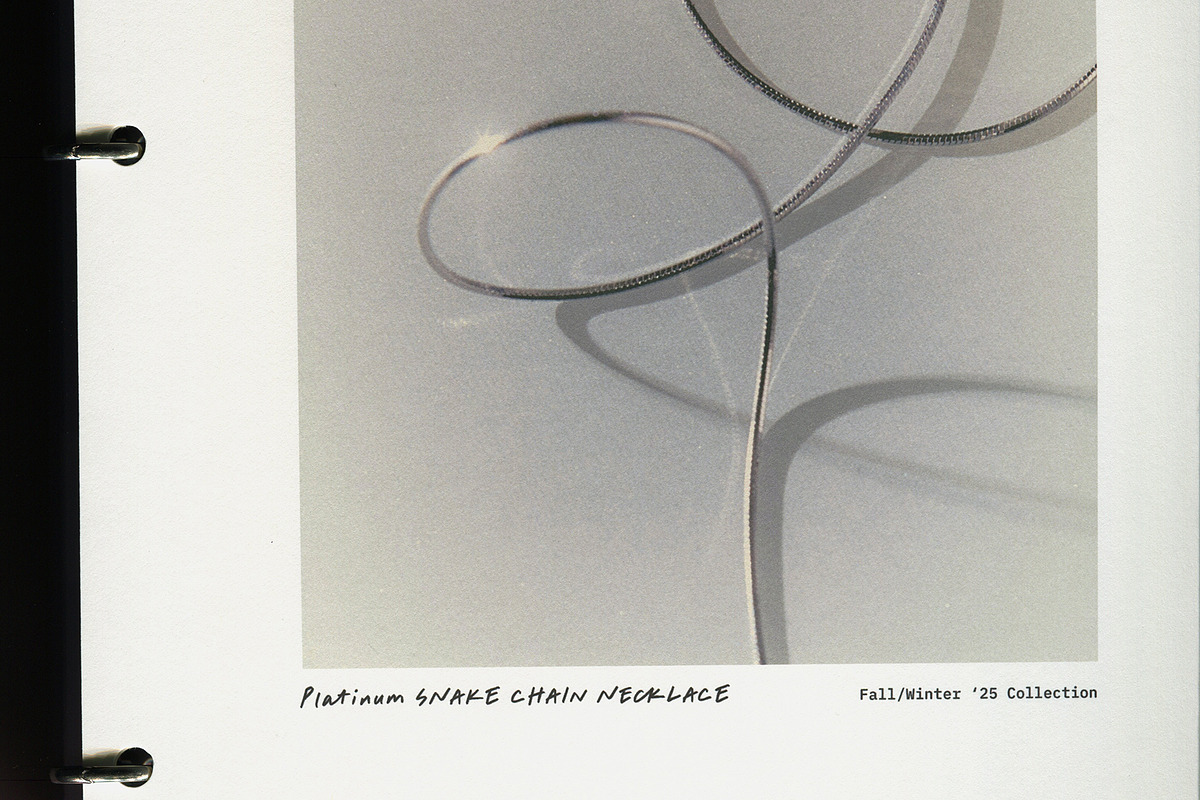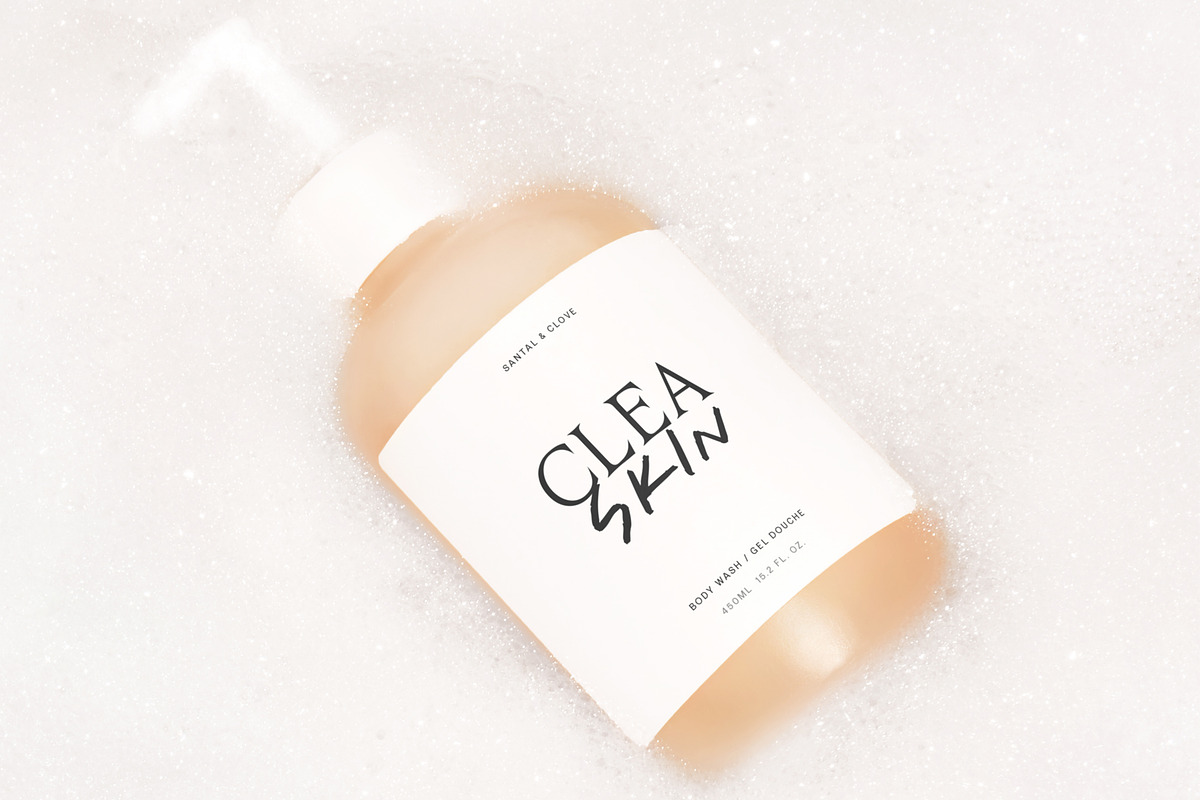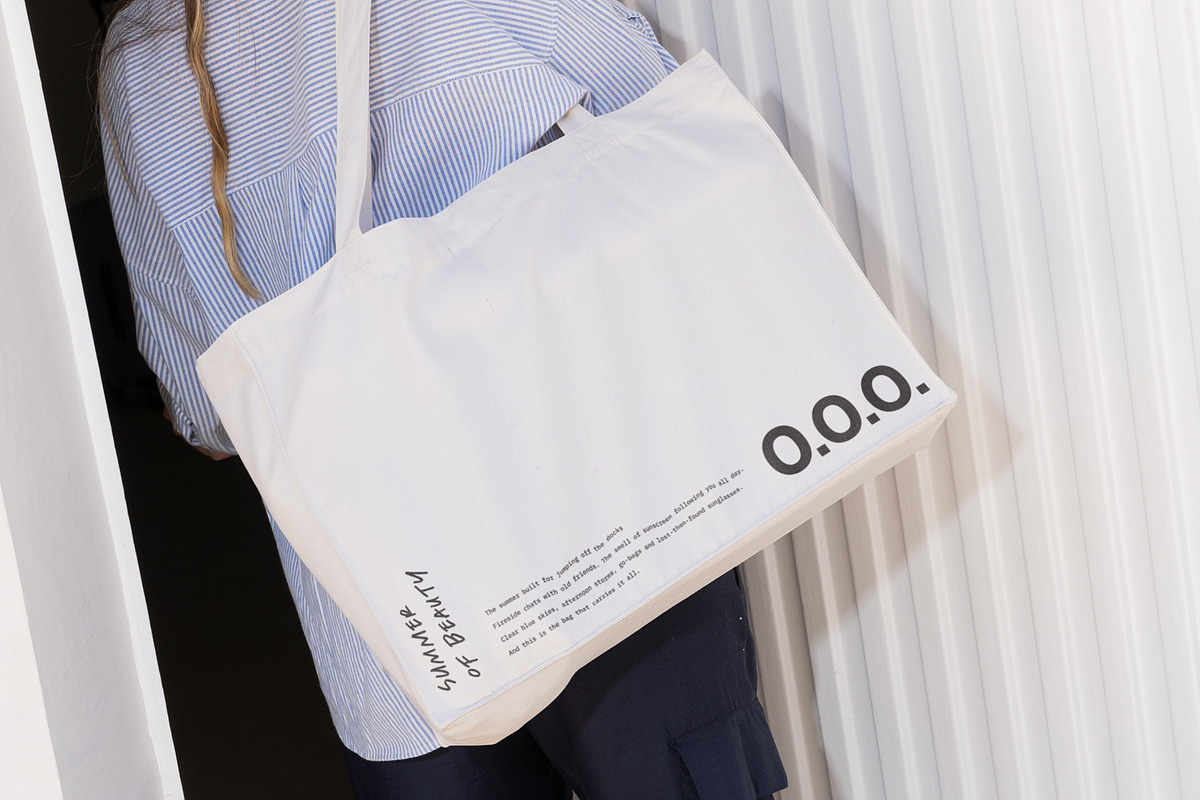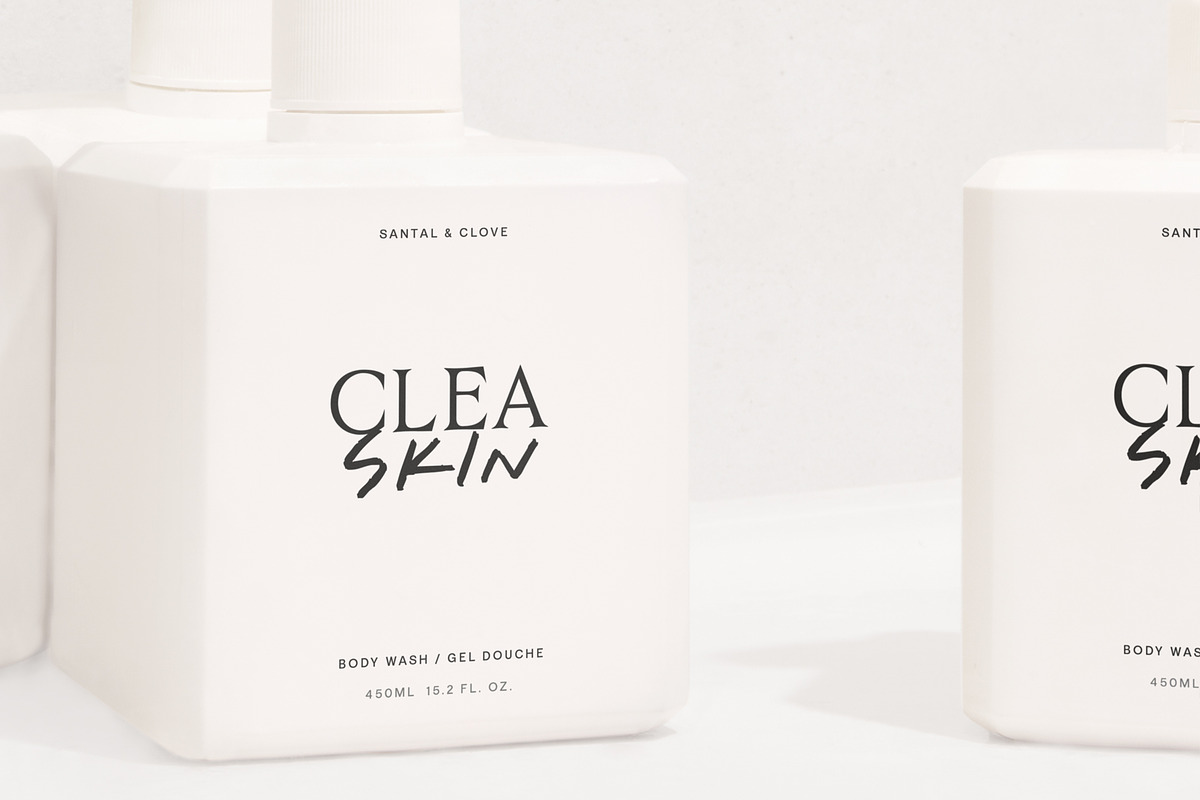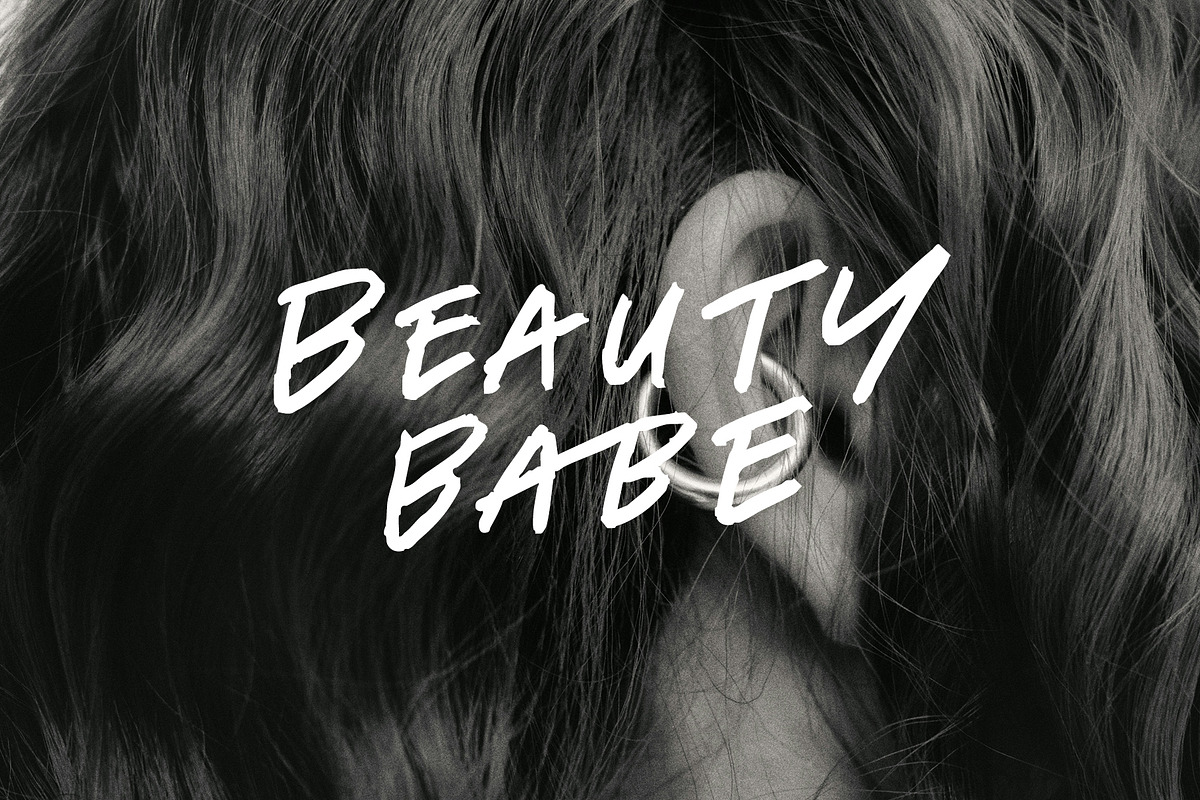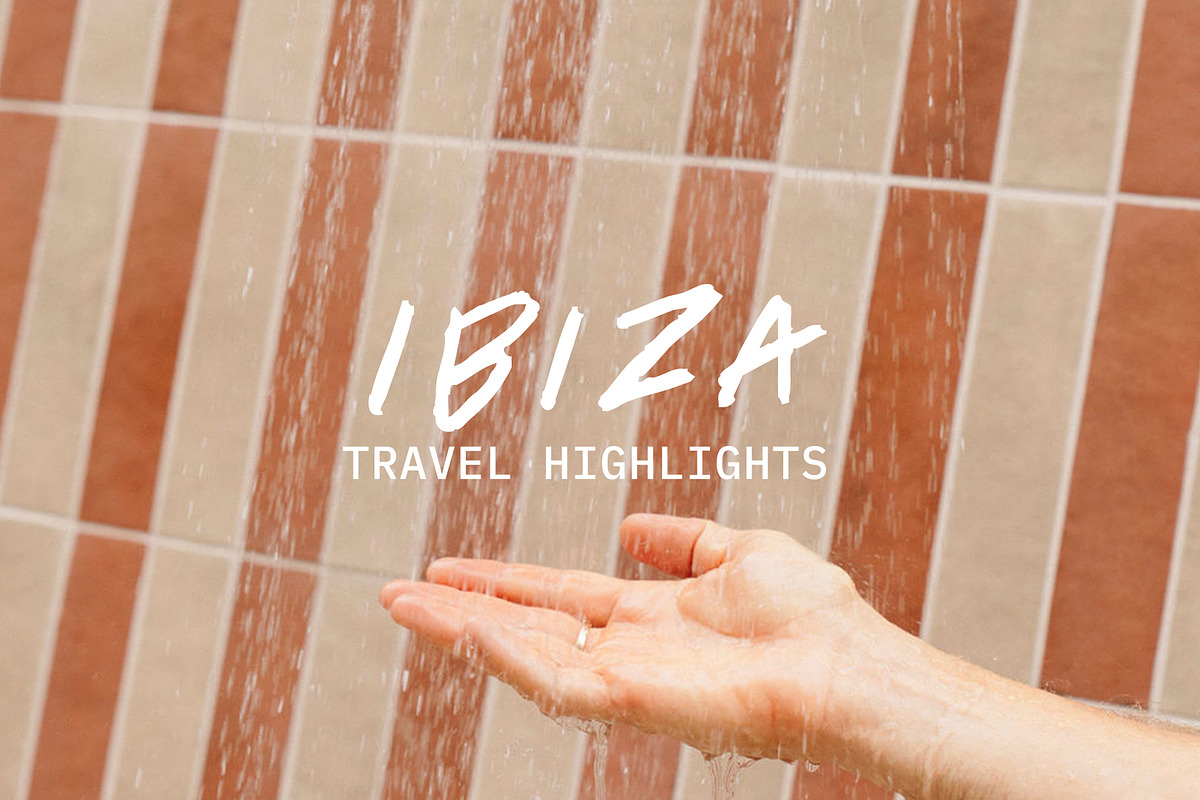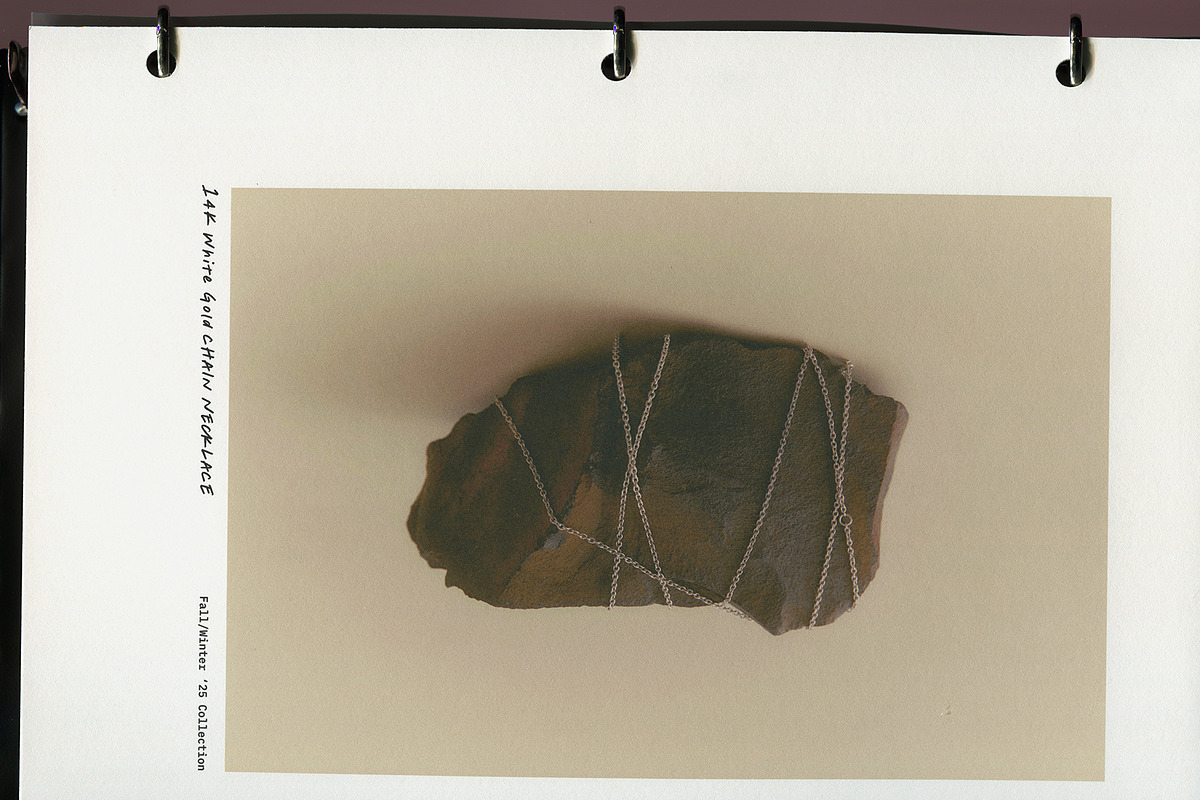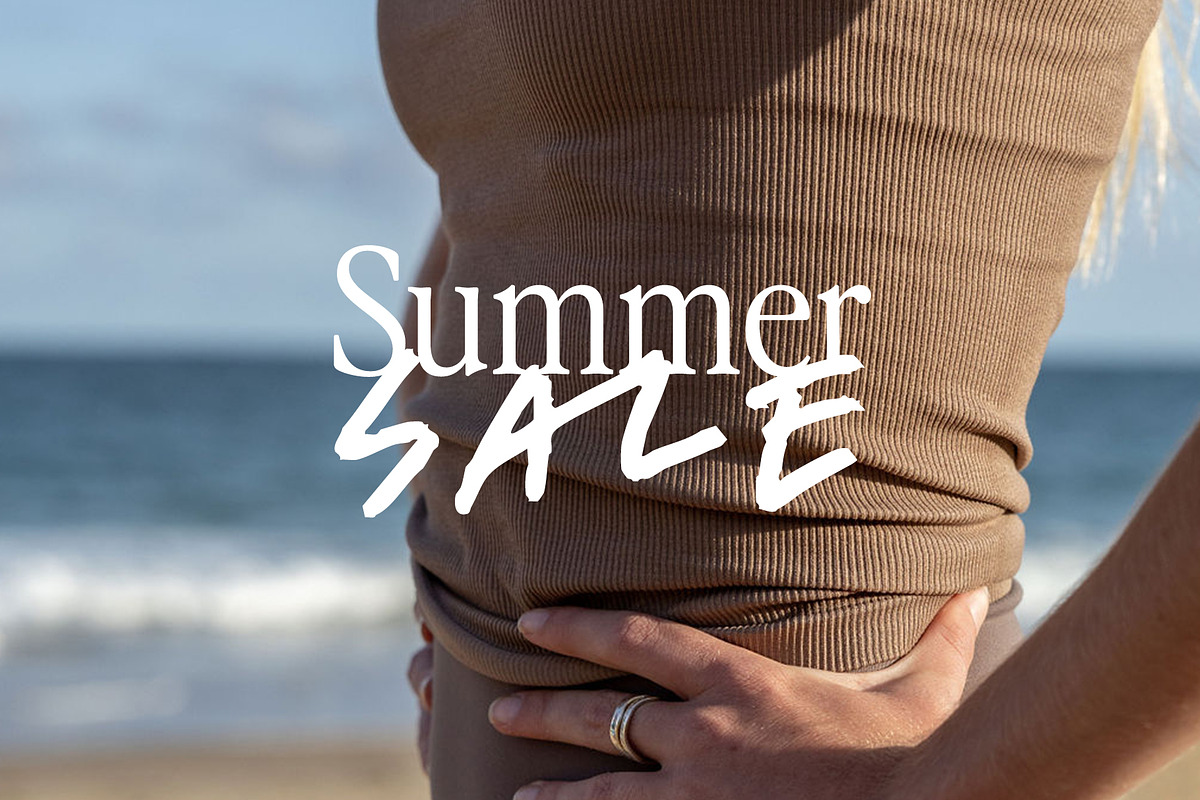
Founder’s Hand | Handwritten Notes
Inspired by the messy in-progress writing you might find scrawled on lipstick palette explorations, or proofs on your CEO or CMO’s desk, Founder’s Hand was designed to maintain an inky, casual handwritten feel while still feeling a bit elevated. It’s the creative director who says, “Ignore my messy handwriting” but you all secretly love it.
Functionally, Founder’s Hand aims to be simple and organic, with coded contextual alternates to help avoid letter repeat patterns, and a few commonly-found ligatures to add to the quickness of the writing in occasional spots.
Specific use-cases include print and packaging, especially on heavier materials to accompany the already-textured feel of the type. It also looks great in web and social media use across digital space, although I recommend it as a secondary accent font to increase impact and avoid overuse.
Founder’s Hand looks best when printed small (or when perceptually small, like smaller accent text on a billboard) – just like you’d find a handwritten note on a page headed for the editor.
- Uppercase & Lowercase; alternates for each letter and number